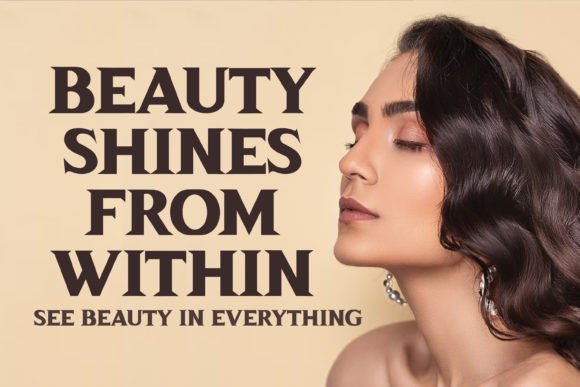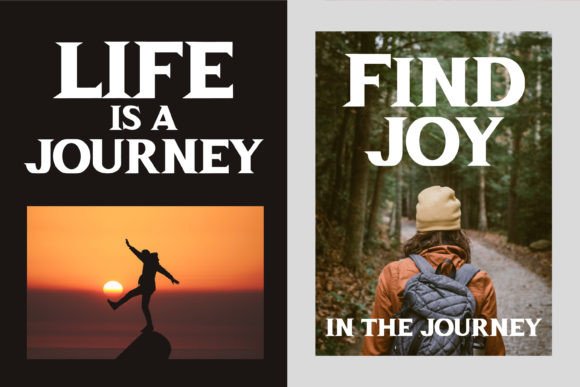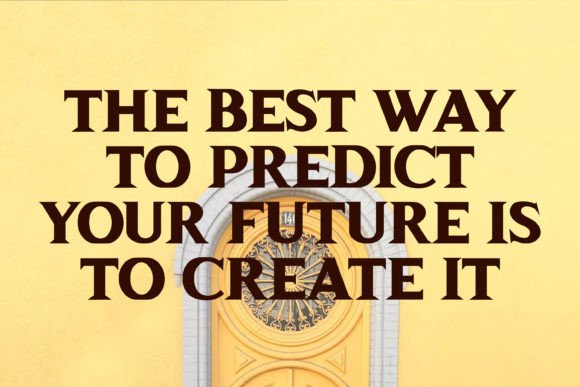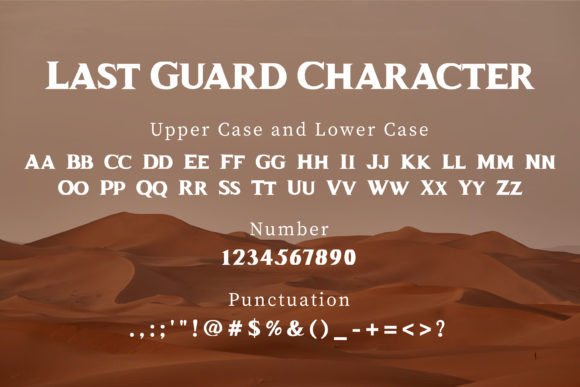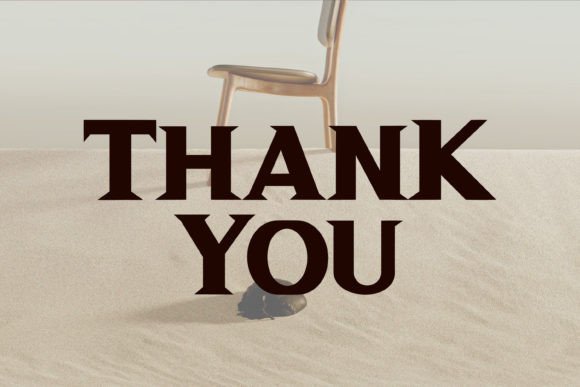
Introduction to Last Guard Font
Introducing Last Guard: The Epitome of Bold Elegance Elevate your designs to new heights with Last Guard, a bold serif display font that exudes timeless elegance and commanding presence.
Designed for those who refuse to settle for the ordinary, Last Guard is the ultimate choice for projects that demand attention and sophistication .